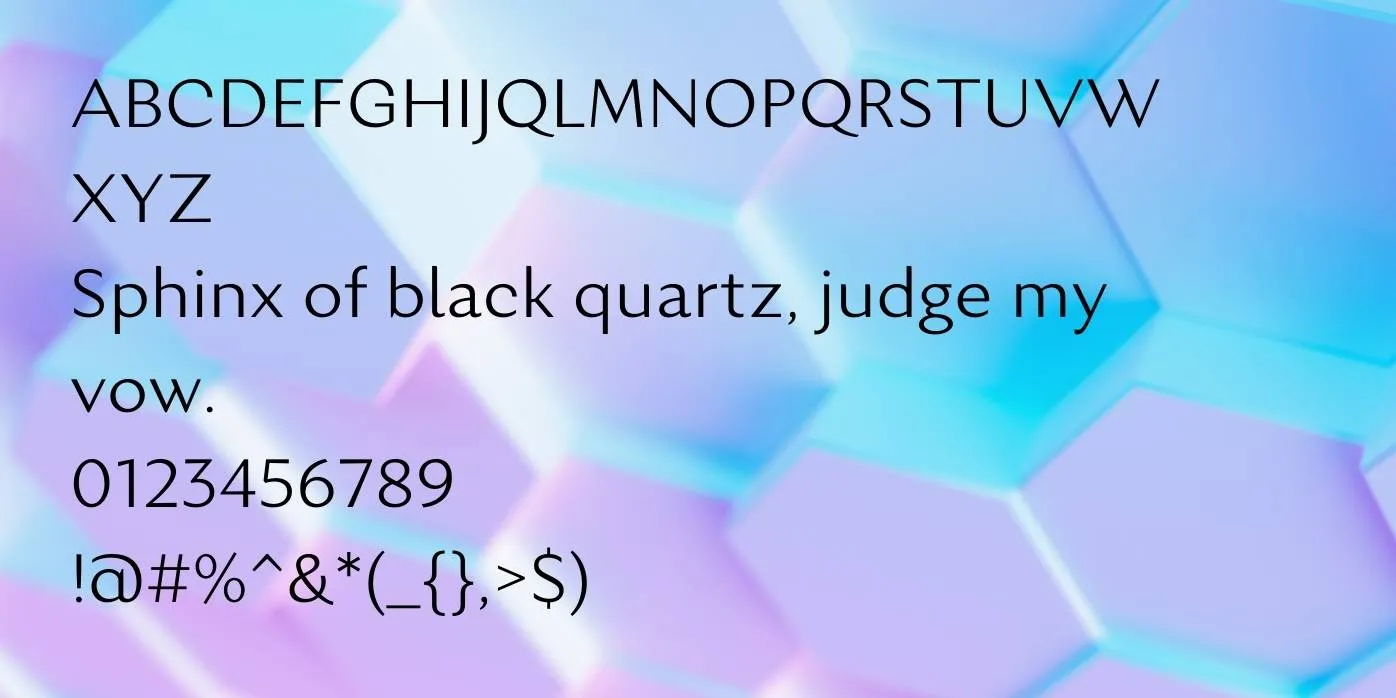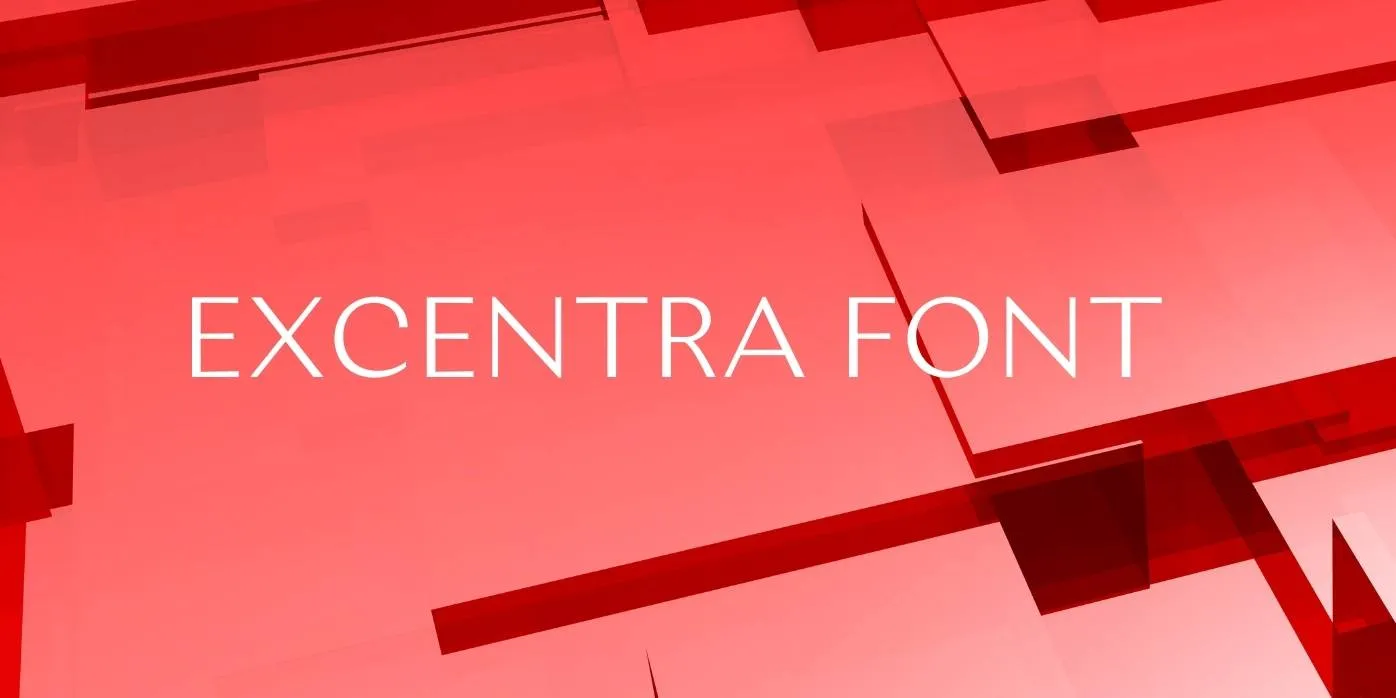
Excentra Pro Font
Introducing a very humble and professional typeface that is Excentra Pro Font. The designer of this font is Mint Type and it is free for personal use. The font family has OTF features. The font family has Opentype Layout and postscript outlines that include Uppercase and Lowercase, Letters, Numbers and Numerals, and special symbols also.
It can also provide the best functions with Avenir Font a sans serif font. You may also get this typeface from an online generator tool facility. This typeface has beautiful characters with light and bold textures as well. You may download it through our website portal without any hassle.
Usage Because of the reality, pretty a few kinds of designers from a number of the typeface and create a few new designs just like farmhouse united states of helsinki font that doesn’t neglect approximately precise from others. The font family is very meaningful for making different designs in Adobe applications and CSS (Cascading style sheet) and many other designing software also. The font family is great for both print and digital projects but seems good for documentation purposes. You can make professional notes and documents with utilize this stunning typeface as heading or titling and body text as well.
It is a very professional sans serif typeface. The designer of this font is Mint Type and it is a great typeface for your documentations. What font is similar to Excentra Pro Font? This typeface has a very elegant texture and can be fitted with any kind of design.
A Helvetica Neue Font can give the best pairing function with this stunning typeface. Is Excentra Pro Font Good for Titles? The font family is a pretty simple style sans serif typeface. It is common for emphasizing the documents.
Due to its high standard visual characters, the typeface is very good for heading and titling. Is Excentra Pro Font Safe for web? This typeface is very great for printing projects as well as digital work also. It is good for web purposes but first, you may have to get its full access from the author.